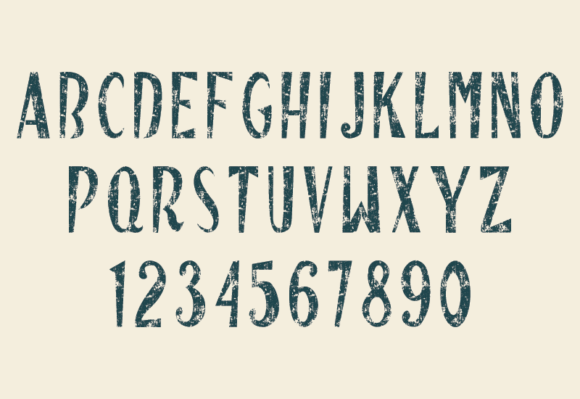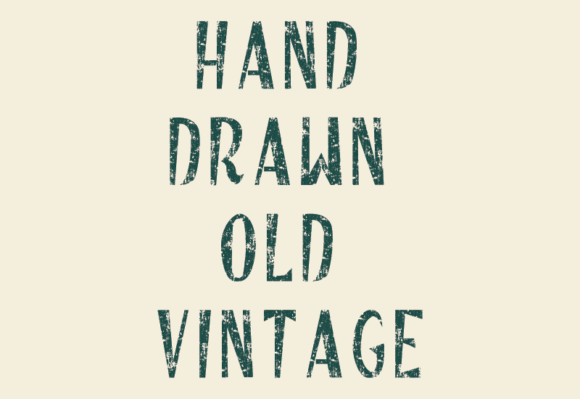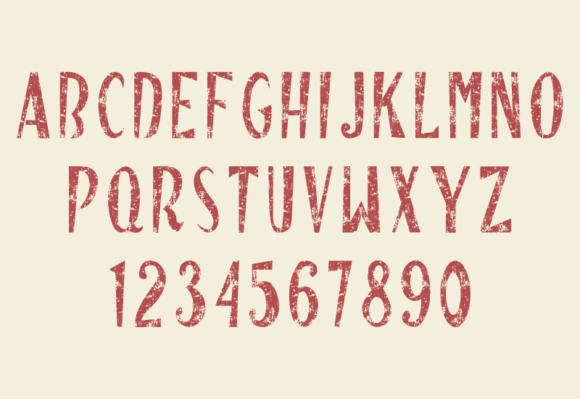
Introducing Hand Drawn Old Vintage Font: Add a Touch of Timeless Charm to Your Designs
Are you looking for a font that can add a dash of nostalgia and whimsy to your design projects? Look no further than the Hand Drawn Old Vintage Font. This exclusive and vintage font is designed to bring a western touch to your creations, making it perfect for designers and crafters who want to add a unique and playful flair to their work.
The Charm of Hand Drawn Old Vintage Font
The Hand Drawn Old Vintage Font is a beautifully crafted font that boasts a charming, hand-drawn aesthetic. Its vintage stylish design method and elements evoke a sense of nostalgia and timelessness, making it perfect for projects that require a touch of classic charm. Whether you’re working on a logo, poster, or packaging design, this font is sure to add a touch of personality and whimsy to your work.
Key Features of Hand Drawn Old Vintage Font
- Exclusive and Unique Design: The Hand Drawn Old Vintage Font is a one-of-a-kind font that is sure to make your designs stand out from the crowd.
- Western Touch: The font’s vintage stylish design method and elements bring a western touch to your projects, making it perfect for designs that require a rustic or country feel.
- Whimsical and Charming: The font’s hand-drawn aesthetic gives it a whimsical and charming quality that is perfect for adding a playful touch to any design project.
- High-Quality Design: The font is designed with high-quality craftsmanship, ensuring that it looks great in any design project.
Uses for Hand Drawn Old Vintage Font
The Hand Drawn Old Vintage Font is a versatile font that can be used in a variety of design projects, including:
- Logos and Branding: The font’s unique and charming design makes it perfect for logos and branding projects that require a touch of personality.
- Posters and Flyers: The font’s vintage aesthetic makes it perfect for posters and flyers that require a touch of nostalgia and whimsy.
- Packaging Design: The font’s rustic and country feel makes it perfect for packaging design projects that require a natural and earthy look.
- Digital Design: The font’s high-quality design ensures that it looks great in digital design projects, including websites, social media graphics, and more.
Tips for Using Hand Drawn Old Vintage Font
Here are a few tips for using the Hand Drawn Old Vintage Font in your design projects:
- Use it sparingly: The font’s unique and charming design can be overwhelming if used too much. Use it sparingly to add a touch of personality to your designs.
- Pair it with other fonts: The font pairs well with other fonts, including sans-serif and serif fonts. Experiment with different pairings to find the perfect combination for your design.
- Experiment with colors: The font’s vintage aesthetic looks great in a variety of colors, including earthy tones and bright, bold colors. Experiment with different colors to find the perfect look for your design.
The Hand Drawn Old Vintage Font is a unique and charming font that is perfect for designers and crafters who want to add a touch of timeless charm to their design projects. With its exclusive and vintage design, western touch, and whimsical aesthetic, this font is sure to make your designs stand out from the crowd. Whether you’re working on a logo, poster, or packaging design, the Hand Drawn Old Vintage Font is a great choice.